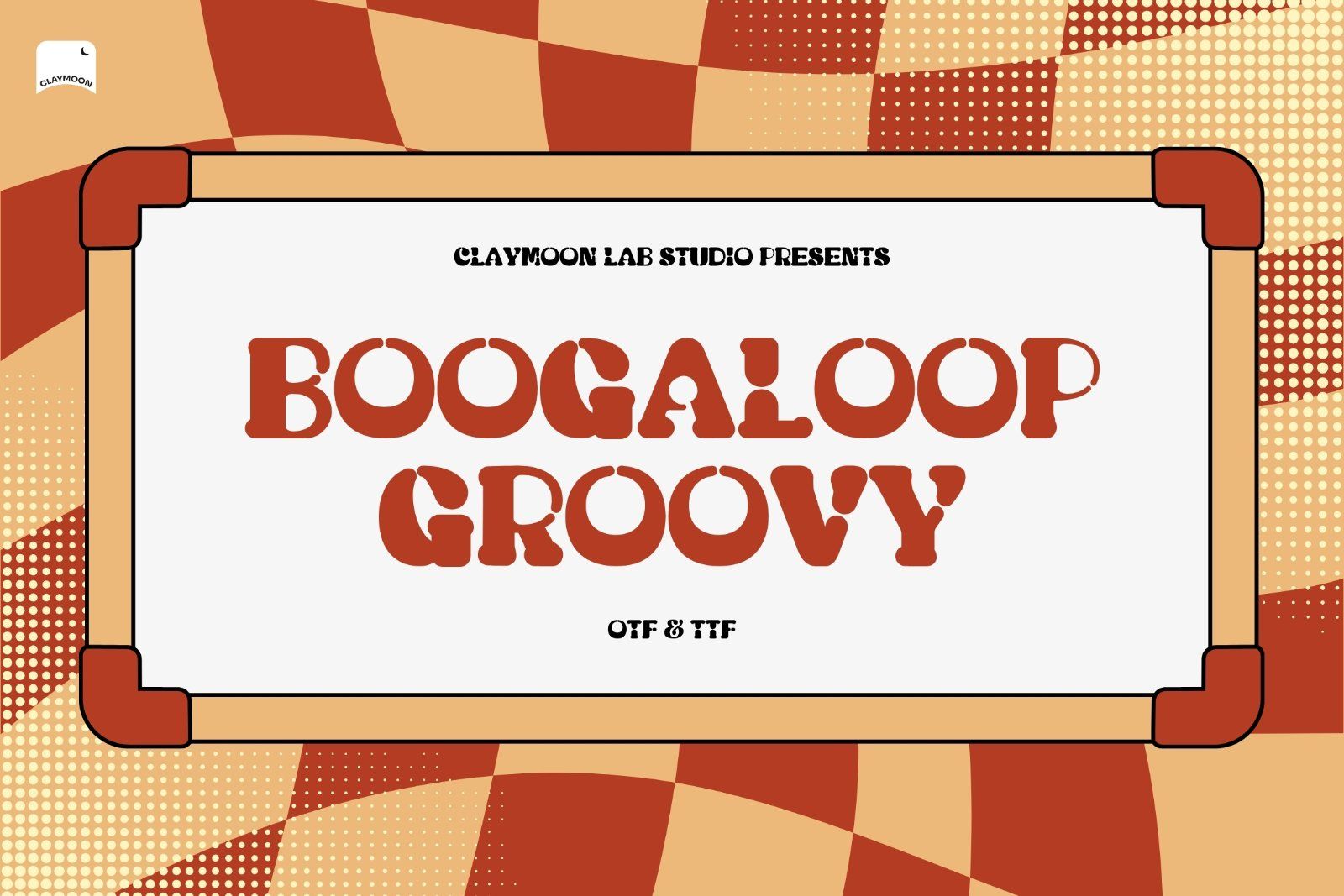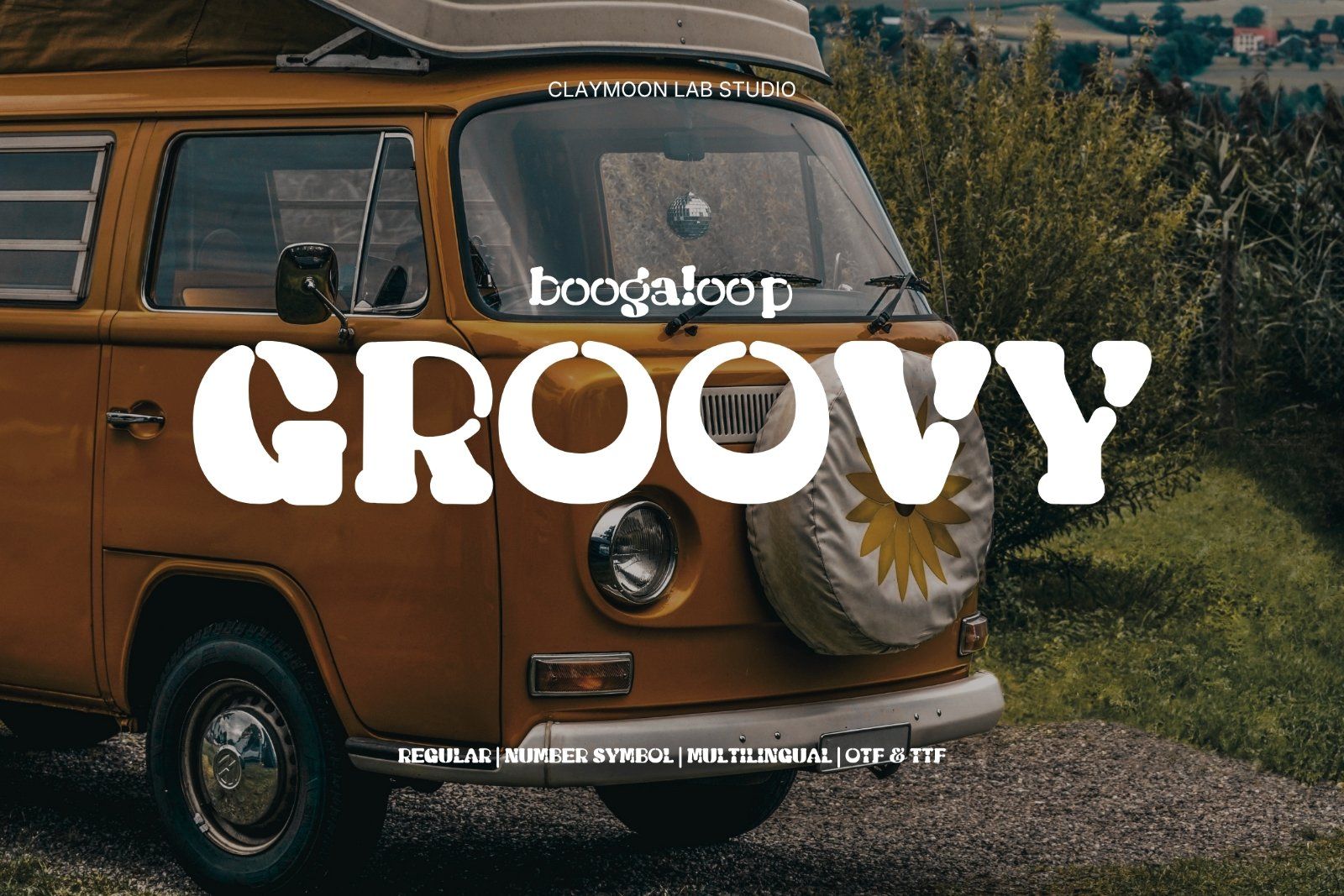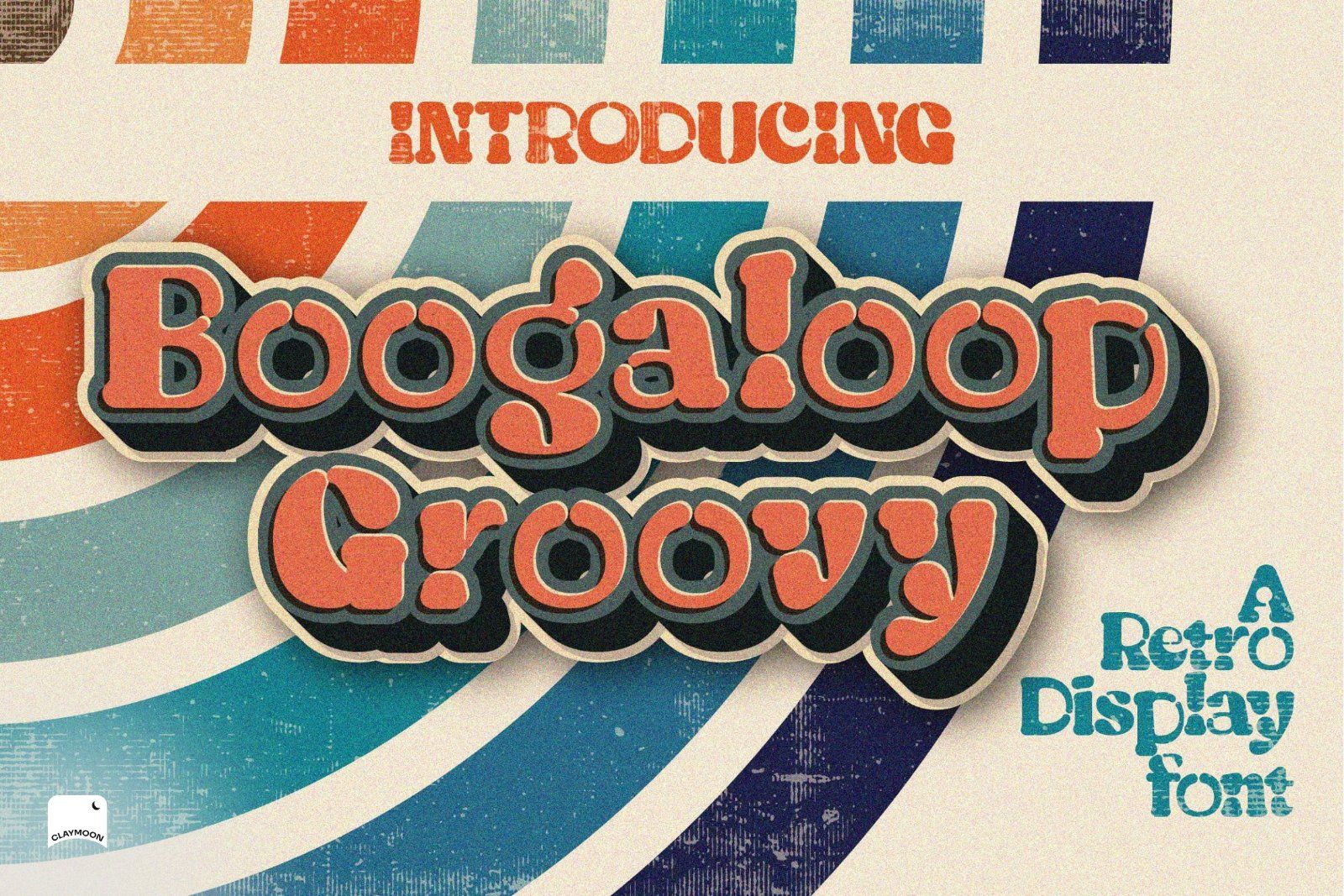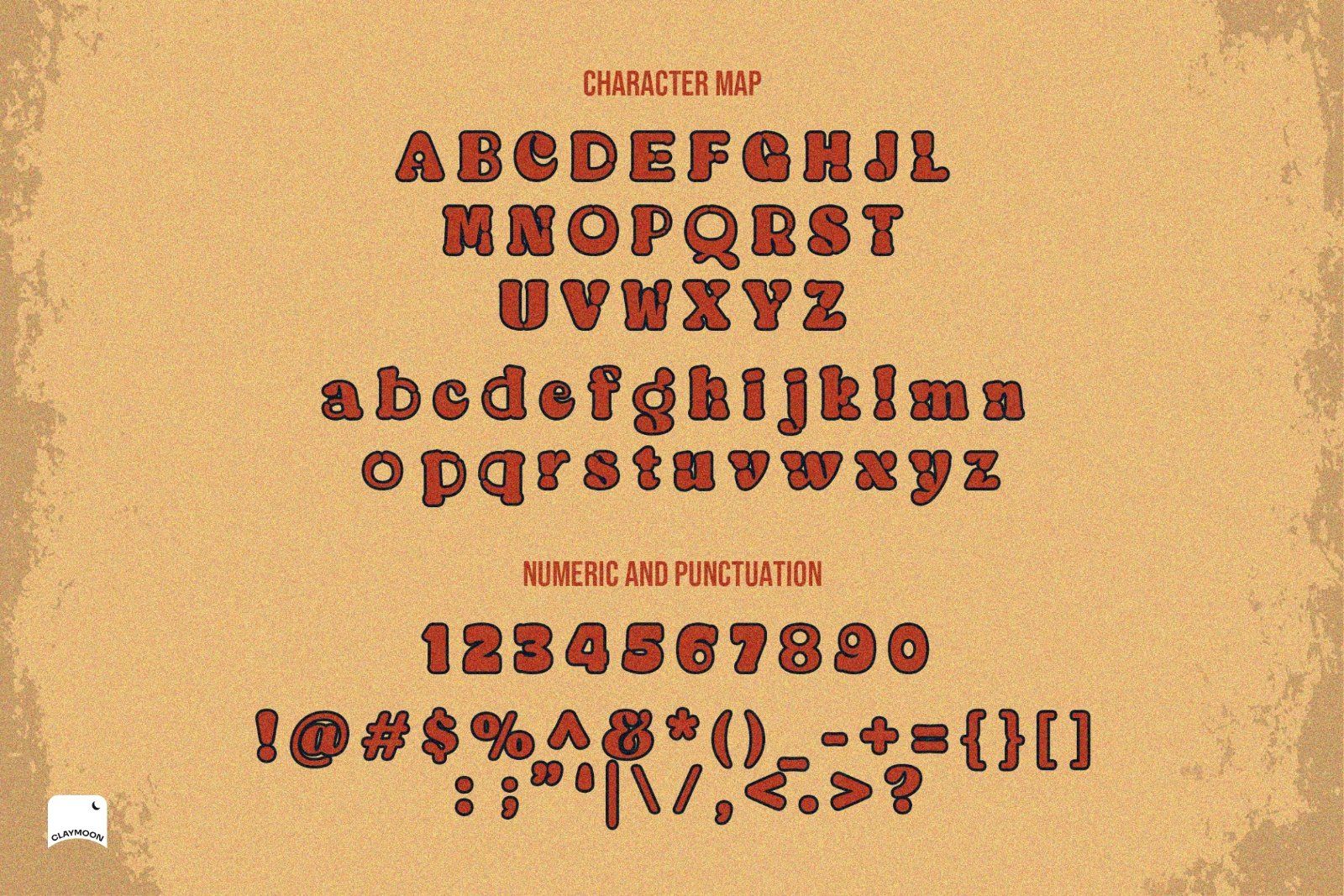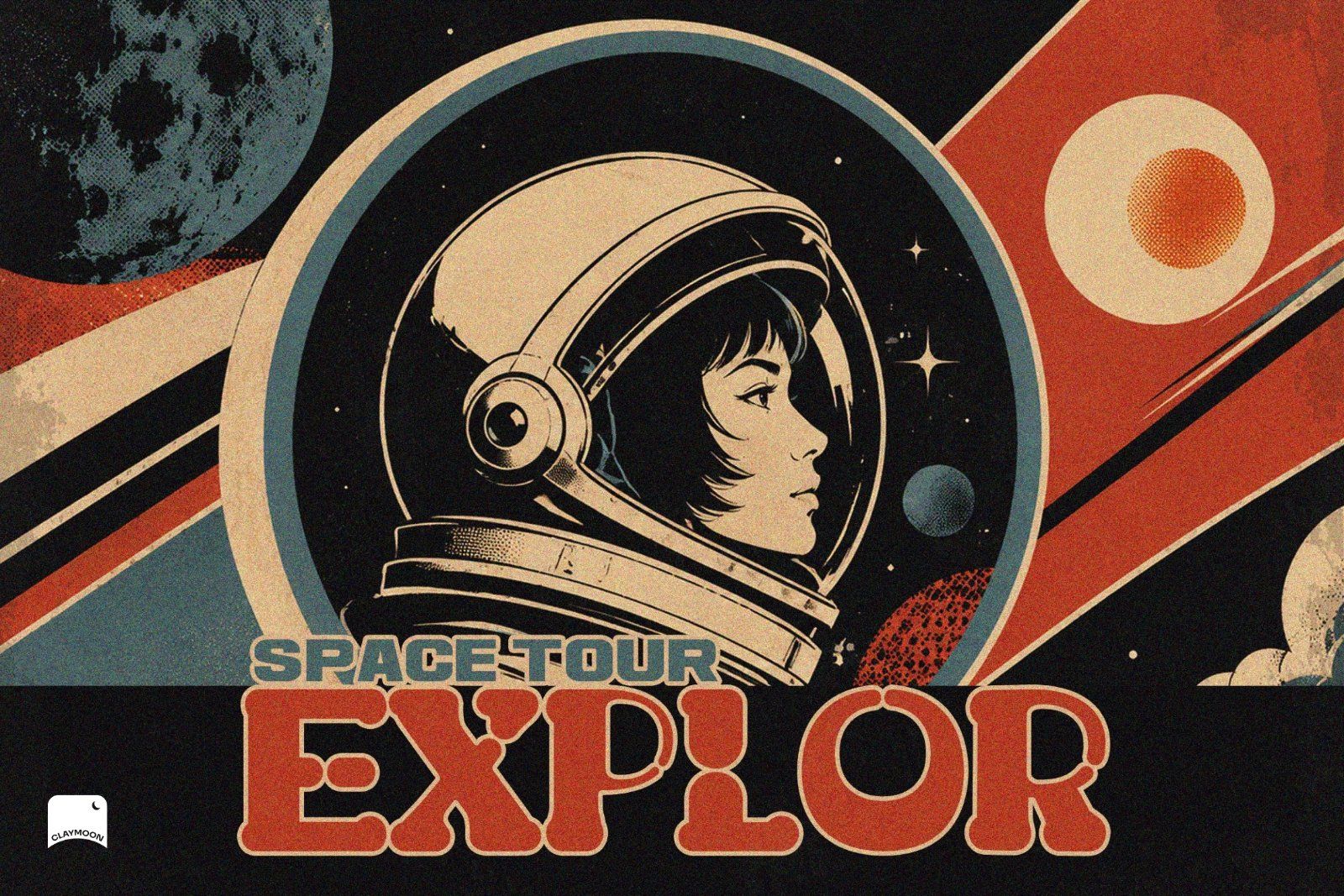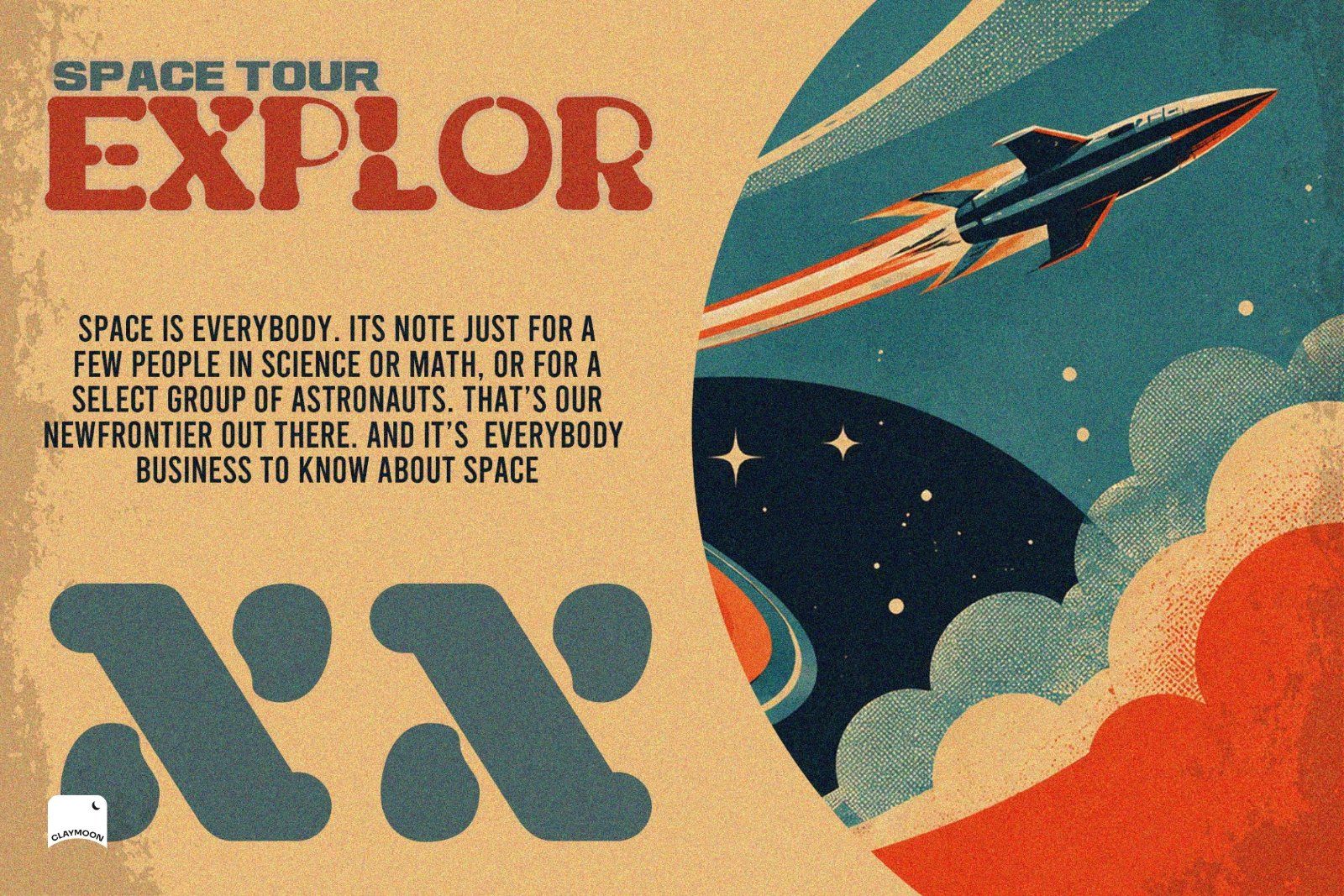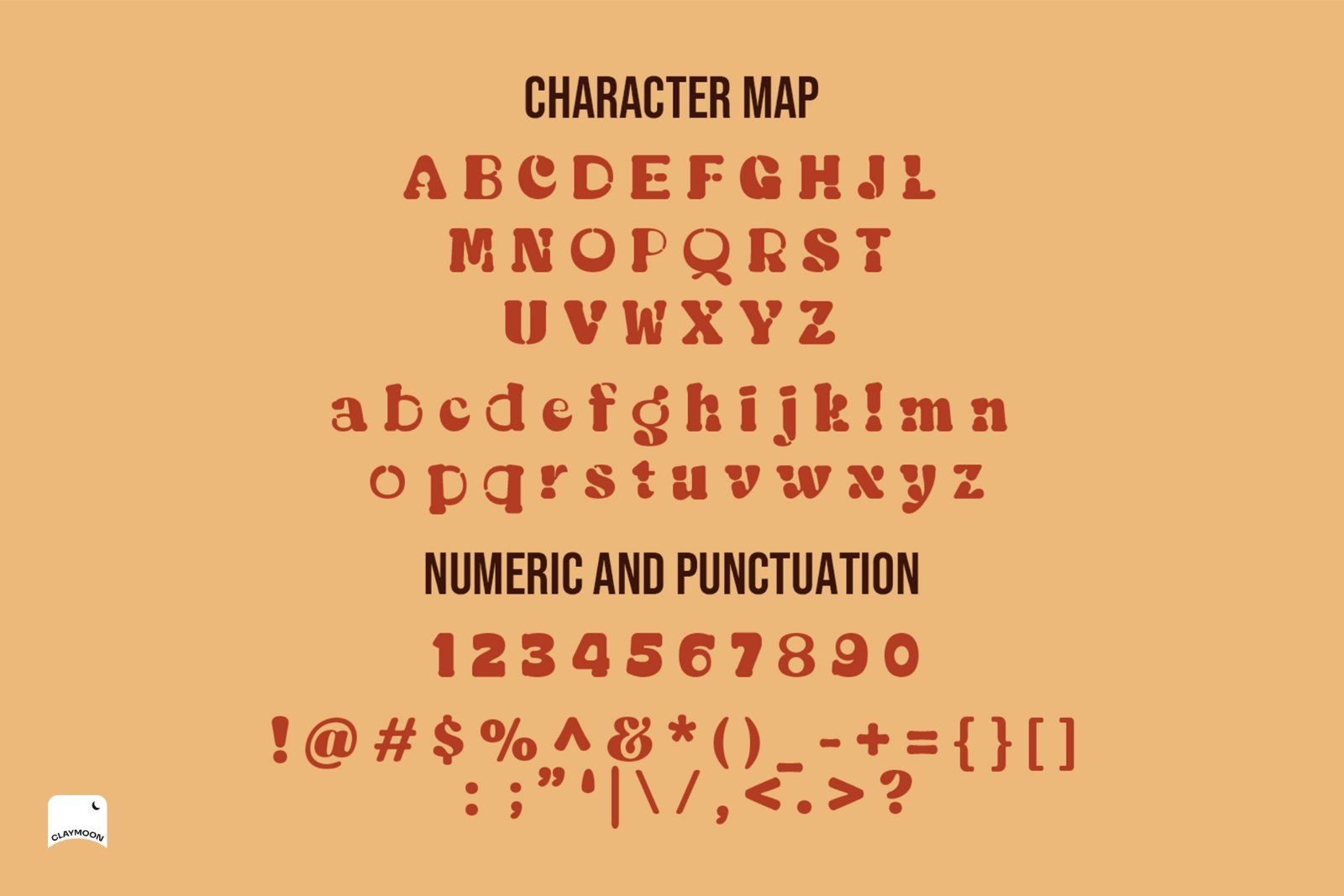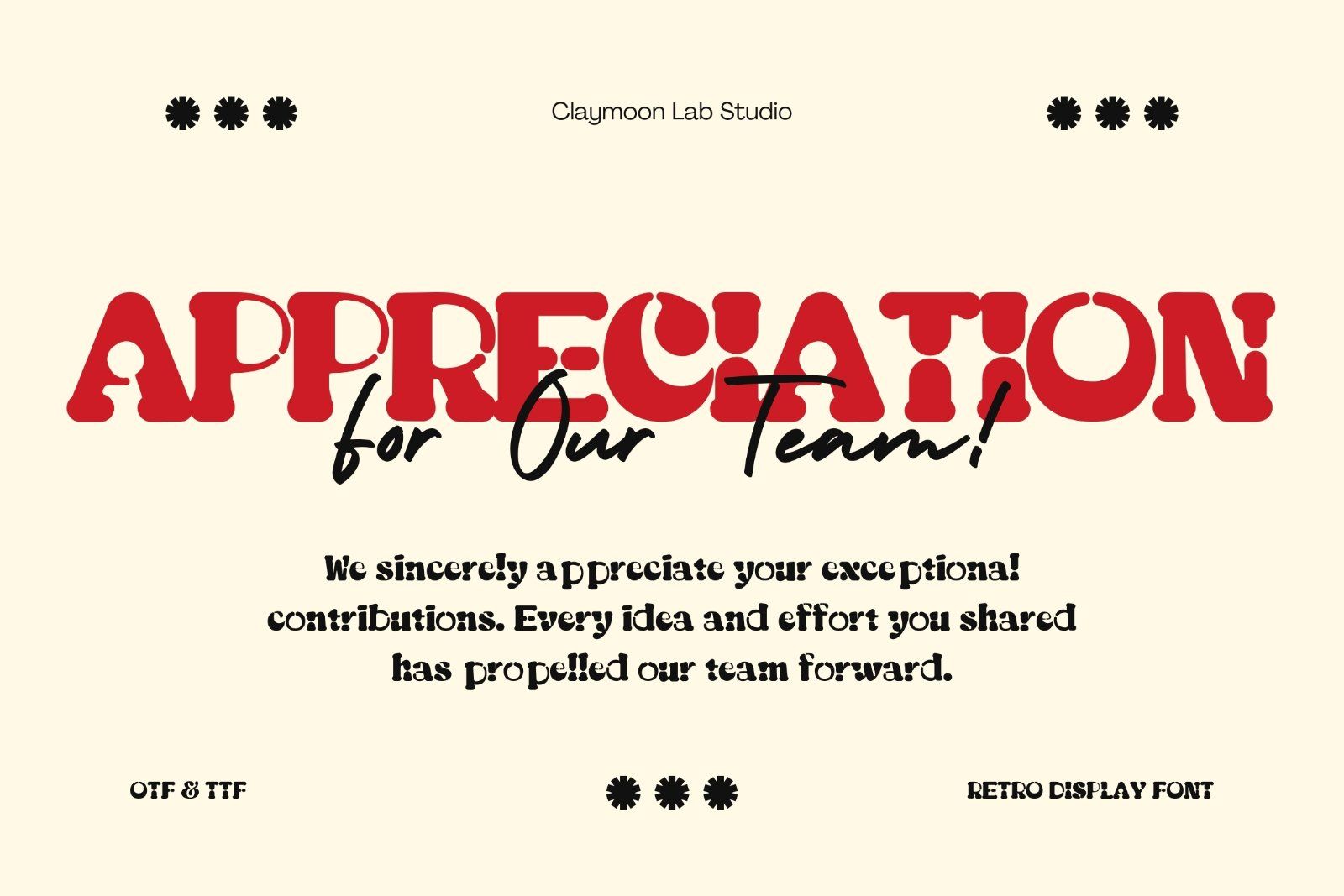
Boogaloop Groovy — Retro Display Font
Blast off into bold, nostalgic design territory with Boogaloop Groovy, a chunky retro display typeface built for designers who want their typography to make a statement. Inspired by the golden age of vintage sci-fi, funfair signage, and 70s pop culture, this font features rounded, bubble-inflated letterforms with a distinctive inline shadow detail that delivers instant depth and personality without any extra effort.
Boogaloop Groovy thrives in headlines, posters, album covers, event branding, and any creative project that demands character over convention. Its warm, hand-crafted energy pairs beautifully with retro textures, halftone patterns, and vintage color palettes — as seen in the Space Tour Explor poster showcase.
• Full Character Set: Uppercase, lowercase, numerals, and punctuation.
• Multilingual Support: Standard Latin characters included.
• Inline Shadow Detail: Built-in dimensional styling for instant retro impact.
Perfect For These Projects:
• Retro & Vintage Branding: Logos, badges, and brand identities with a nostalgic 60s–70s aesthetic.
• Event Posters & Flyers: Concert promotions, festival announcements, and entertainment marketing.
• Album & Music Artwork: Cover art, EP releases, and band merchandise with bold typographic presence.
• Gaming & Entertainment: Retro-themed game UI, title screens, and promotional assets.